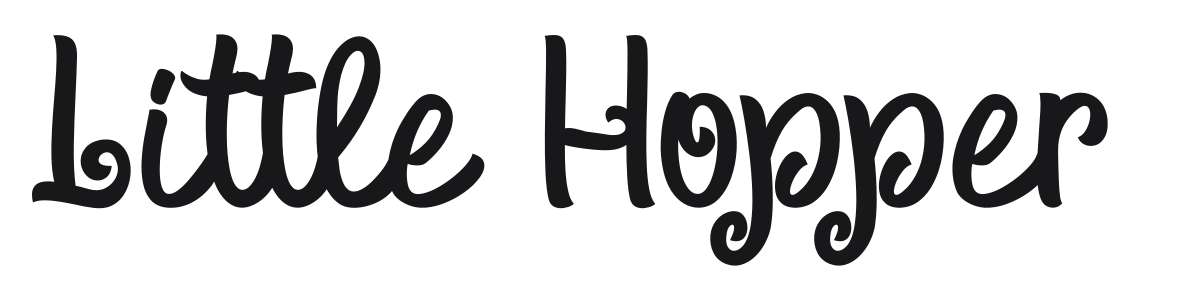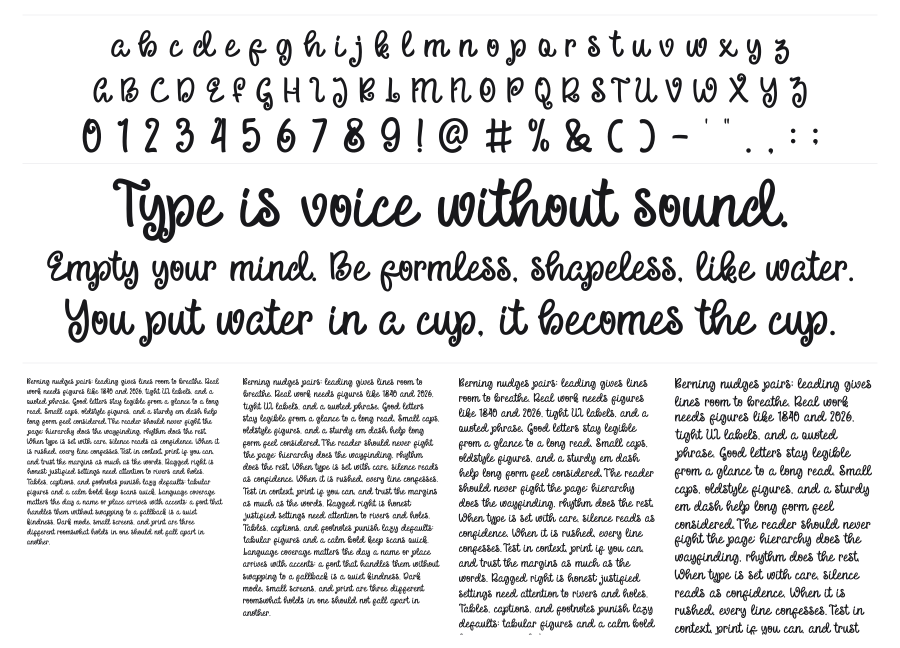
Little Hopper
Little Hopper is a bold casual script from Fourlines with flowing connections and rounded, hand-lettered charm. Its lively strokes and curling terminals carry a natural warmth that feels spontaneous without being sloppy. Great for branding, packaging, or any headline that needs a friendly, personal touch.